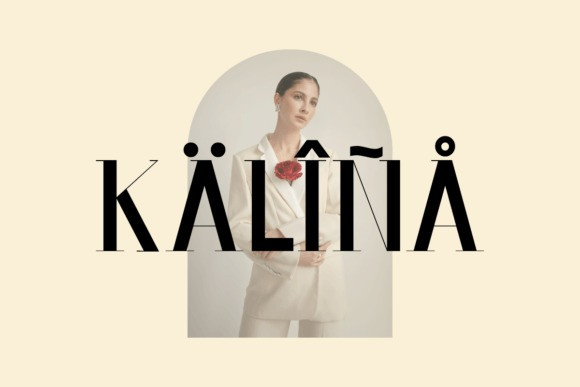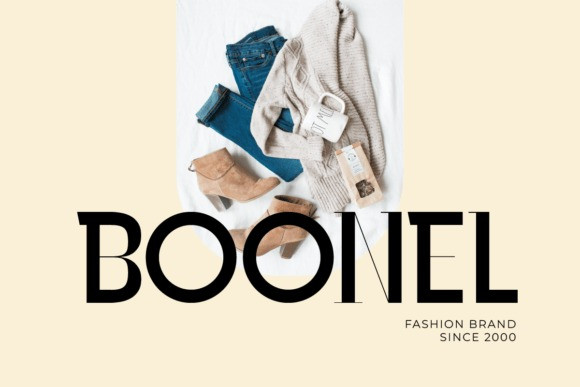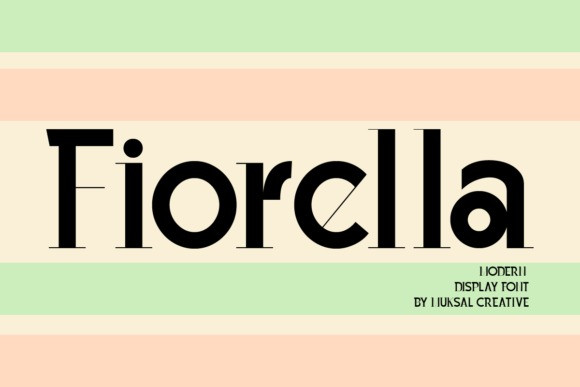
Fiorella Font
Fiorella Font – Modern Display Font, special glyphs, ornament, and multilingual support. It’s a very versatile font that works great in large and small sizes. Perfect for editorial projects, Logo design, Clothing Branding, product packaging, magazine headers, or simply as a stylish text overlay to any background image.